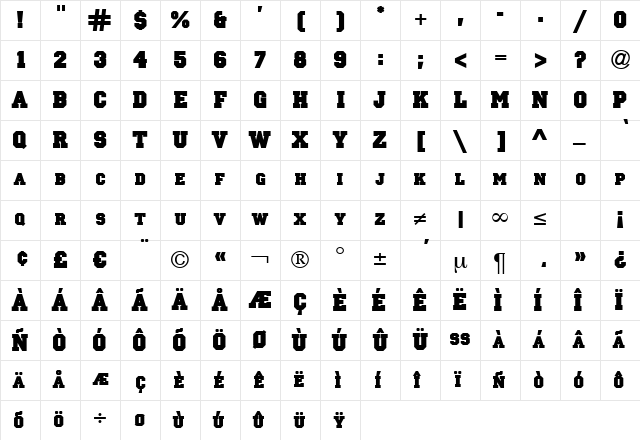
PrincipalSolid Regular Free Font
PrincipalSolid Regular
PrincipalSolid Family
Complete PrincipalSolid Regular glyph index. Displaying only characters natively supported by PrincipalSolid Regular font.
Design Context for PrincipalSolid
PrincipalSolid is a composed and adaptable typeface that performs quietly and consistently across a wide range of design contexts.